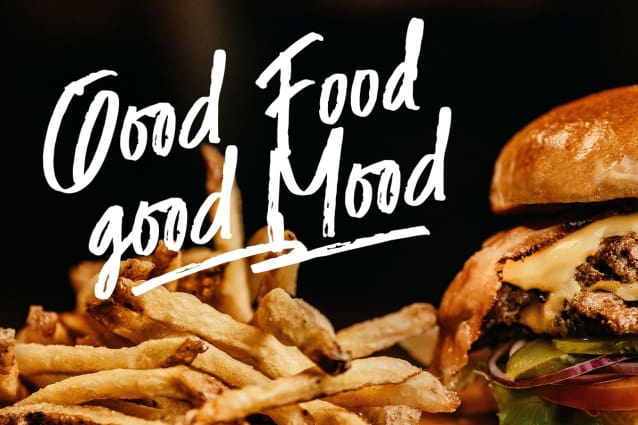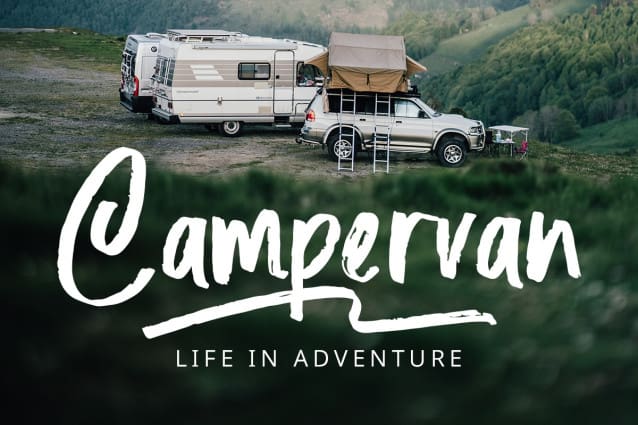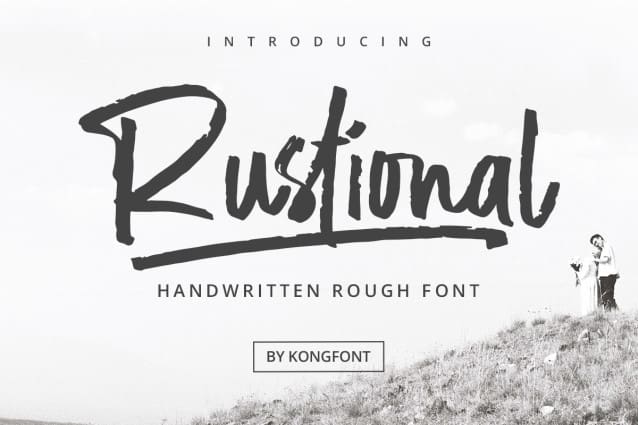
Rustional Script Font
Rustional Script Font – Modern Script Brush font is one of the best choices among other fonts. This font is made to resemble handwriting with the help of a brush in its manufacture. Not only that, but it is also in the form of uncovered strokes giving an aesthetic and modern impression. With unique characteristics, Rustional Script Font – Modern Script Brush font is still relatively easy to distinguish between letters.
Seeing the explanation, the Rustional Script Font – Modern Script Brush font is legible. This font is suitable for printing in both large and small sizes. It will be obvious, as long as it is not filled with excessive ornamentation. When Rustional Modern Script Brush font stands alone, it already has artistic value and looks attractive.
The Rustional Script Font – Modern Script Brush font is a typeface that is well-suited for writing on modern equipment. Rustional Modern Script Brush font are blendable on the board which adds artistic value and the board’s appeal. Rustional Modern Script Brush font can also write on book covers and stickers. Mystery storybook samples work well with this type of font, as well as stickers that contain quotes. This is because these objects do not require too much writing.
Apart from that, this font is also suitable for music video intros that contain song titles, metropolitan-themed movie titles with dark tones, and other videos that can indeed be combined with the Rustional Script Font – Modern Script Brush font. In its application, Briketts Script Brush font can choose various font sizes and the appropriate file types.